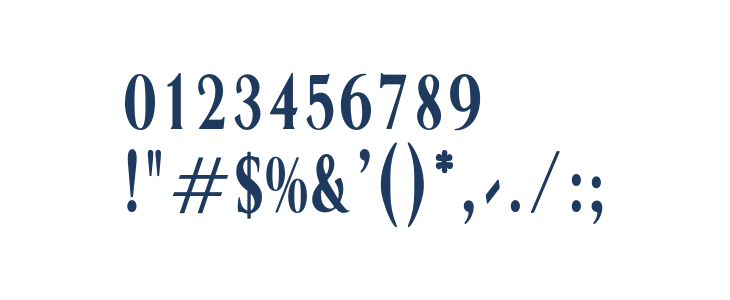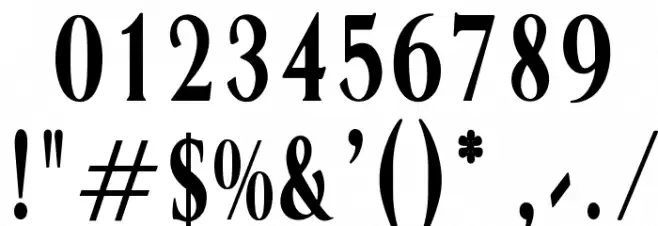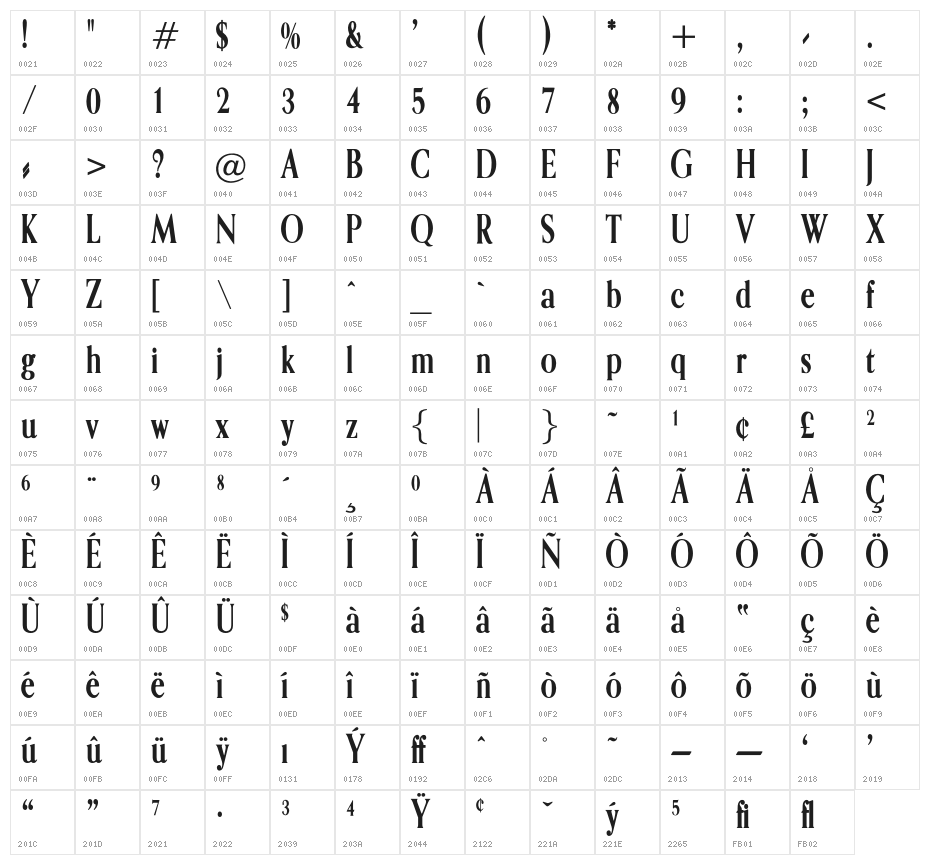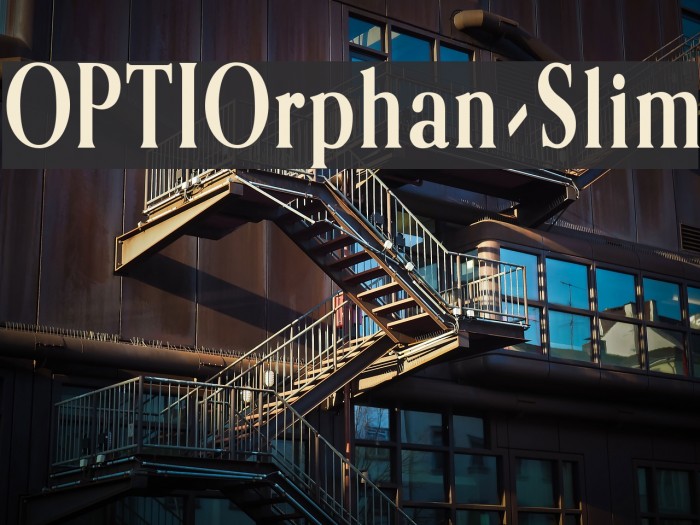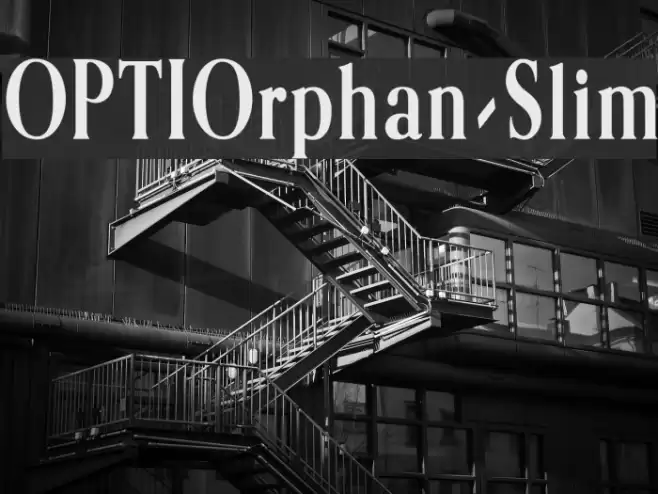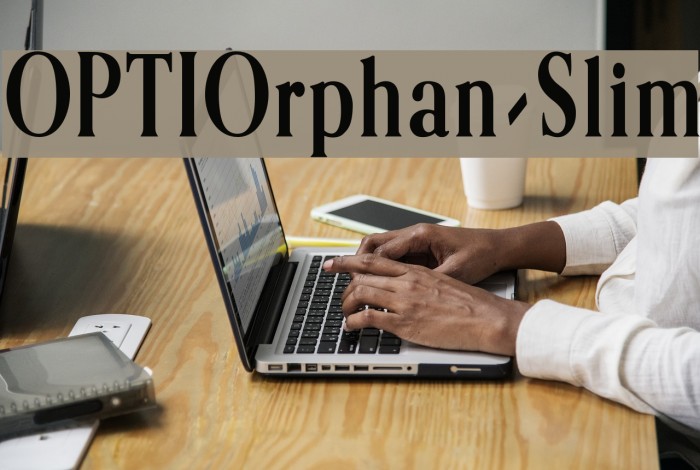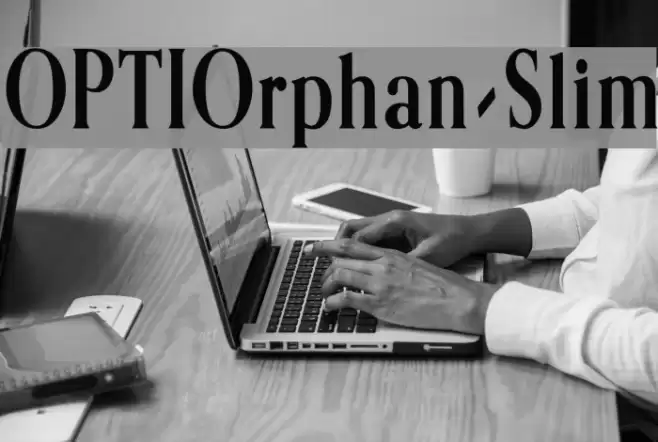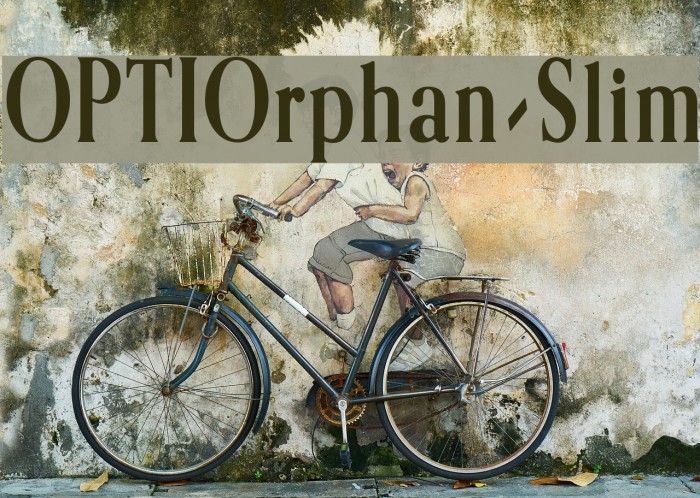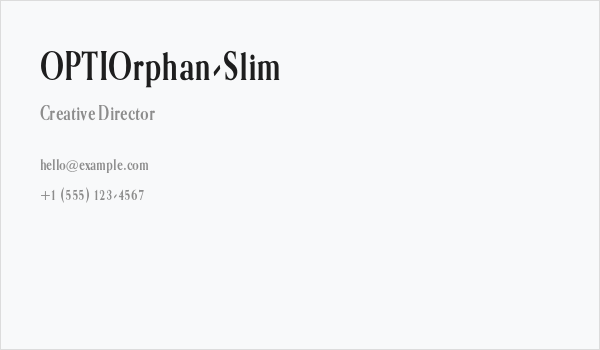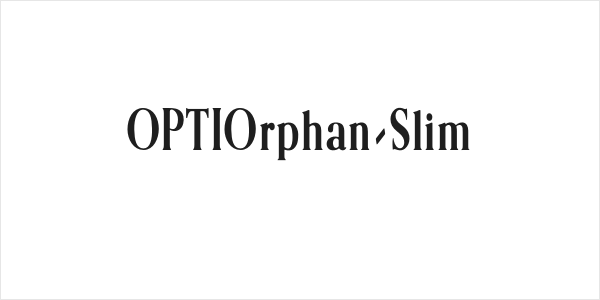
OPTIOrphan-Slim Font
OPTIOrphan-Slim Description
This font features a classic serif style with elegant, elongated letterforms that convey a sense of sophistication and tradition. The uppercase letters are tall and commanding, while the lowercase letters maintain a balanced and harmonious appearance. The numerals are clear and distinct, ensuring readability. Special characters are designed with the same attention to detail, making them suitable for a variety of uses. The overall design is refined, with a slight contrast in stroke thickness that adds to its timeless appeal.
| Proposed Projects | Ideal for editorial design, book covers, formal invitations, and branding projects that require a touch of elegance. |